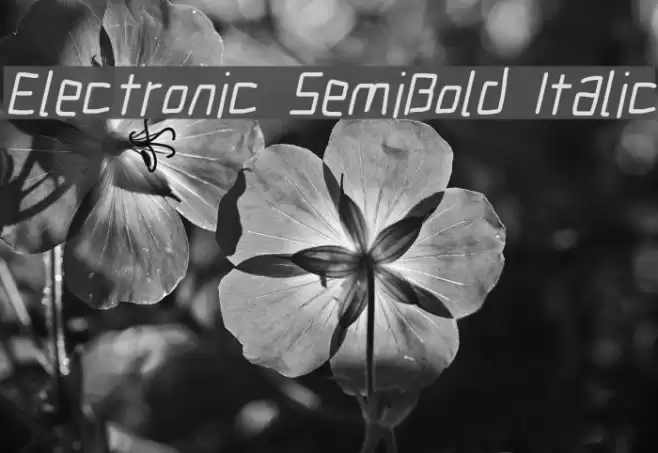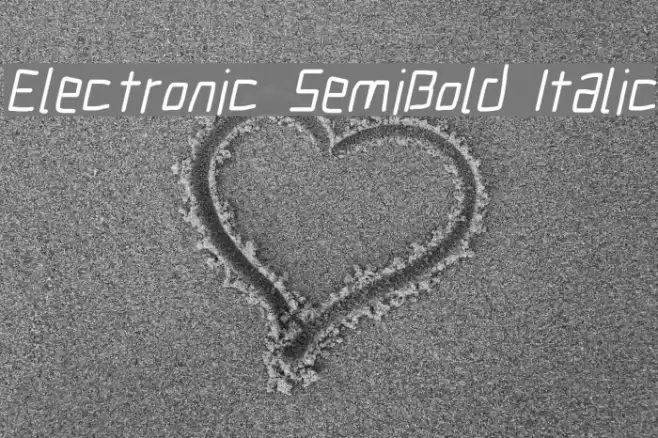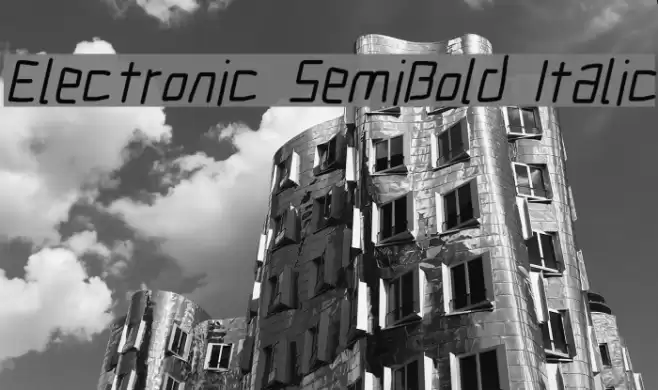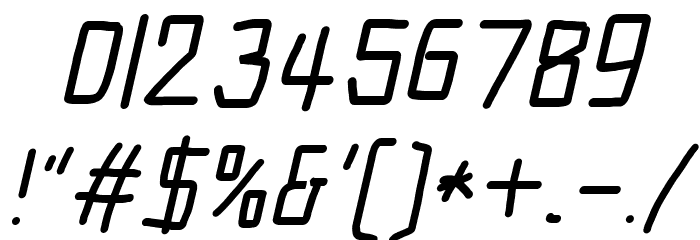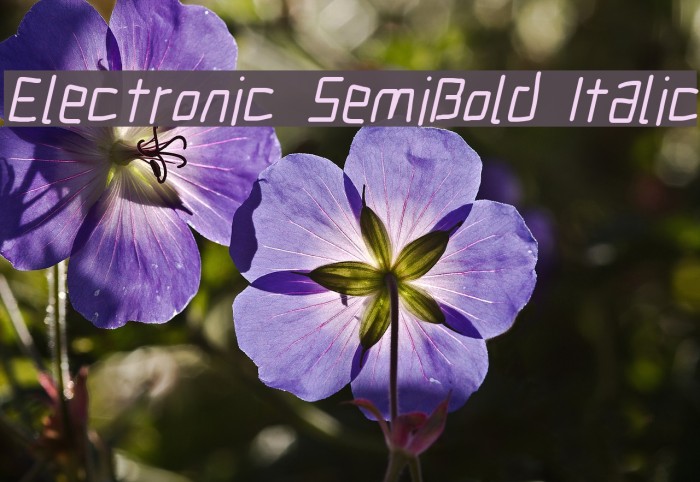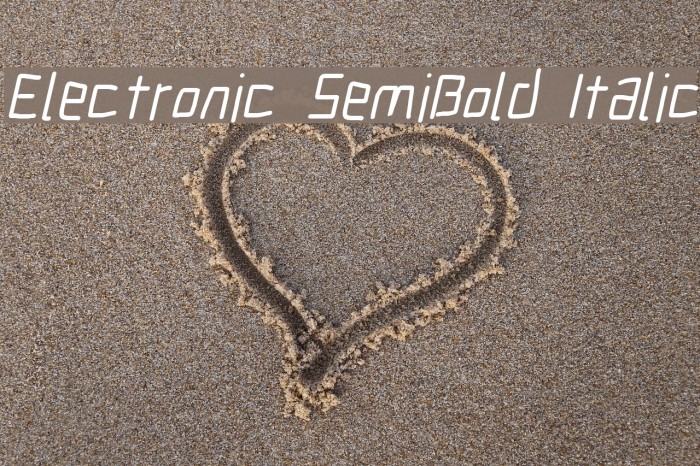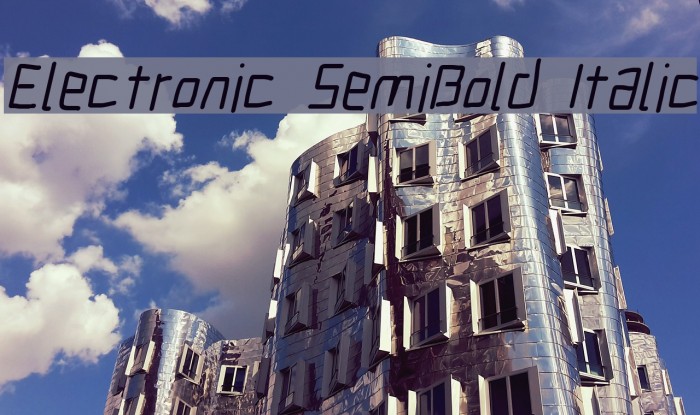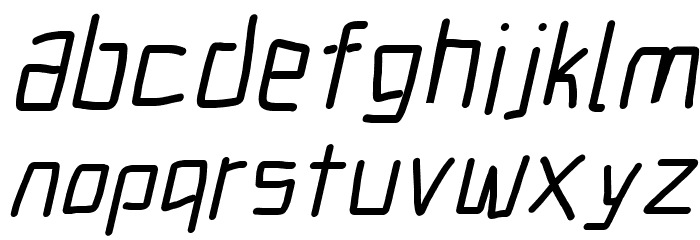
Electronic SemiBold Italic Font
Electronic SemiBold Italic Description
This font features a modern, electronic-inspired design with semi-bold weight and italic styling. The characters are slightly condensed, giving a sleek and streamlined appearance. The strokes are consistent in thickness, providing a medium contrast that enhances readability while maintaining a futuristic aesthetic. The angular and geometric shapes of the letters convey a sense of technology and innovation. The font includes a full set of uppercase and lowercase letters, numbers, and a variety of special characters, making it versatile for various design needs.
A modern, semi-bold italic font with a sleek, electronic-inspired design from Uncategorized fonts.
- Proposed Projects: Ideal for tech branding, digital interfaces, futuristic posters, and innovative product packaging.
- Use Case: Headlines, Logos, Digital Interfaces